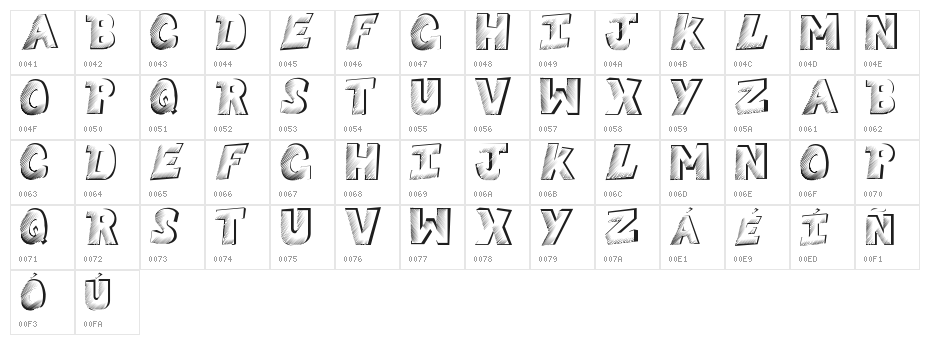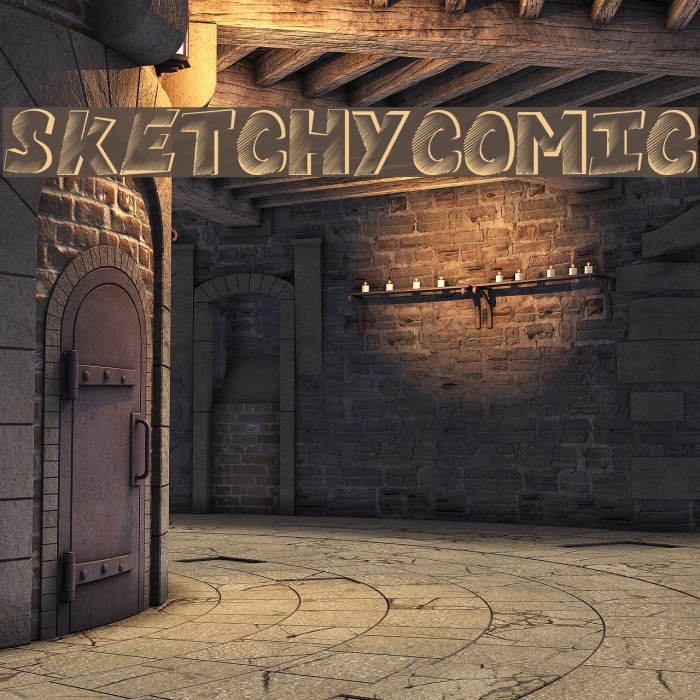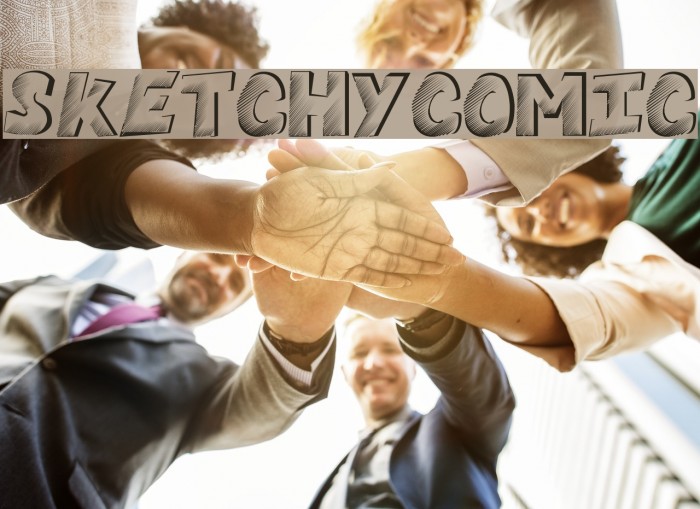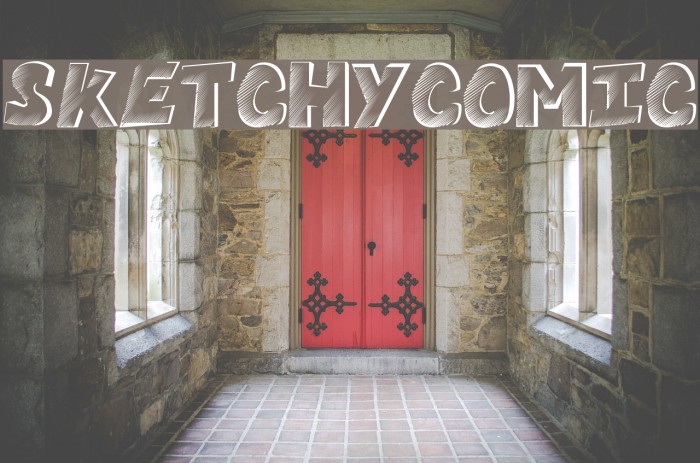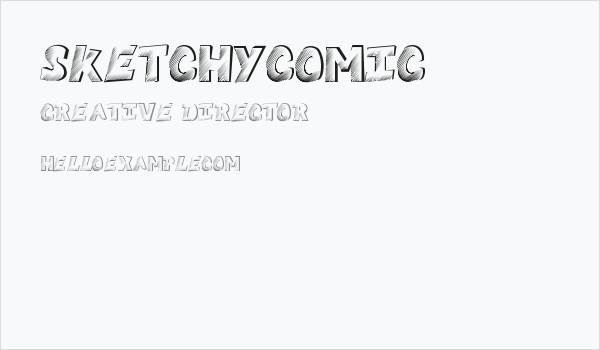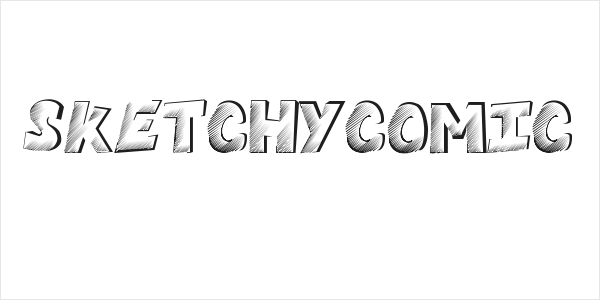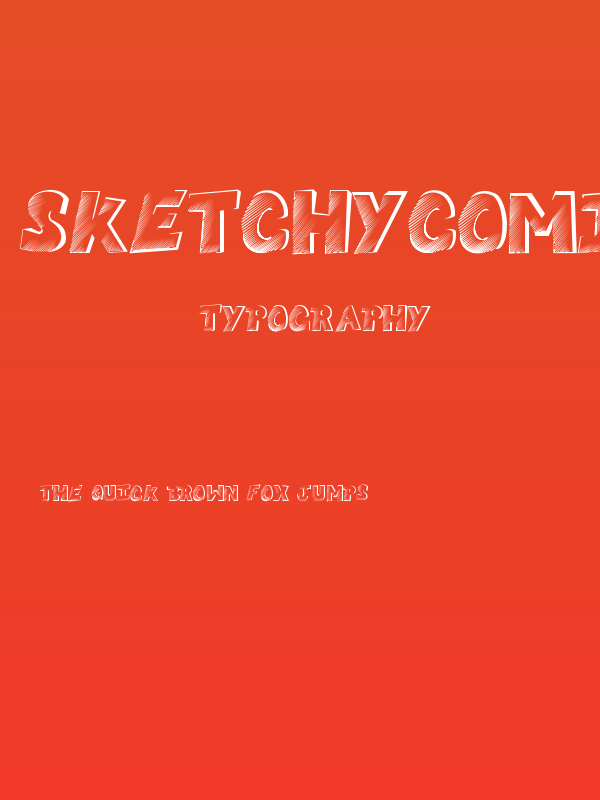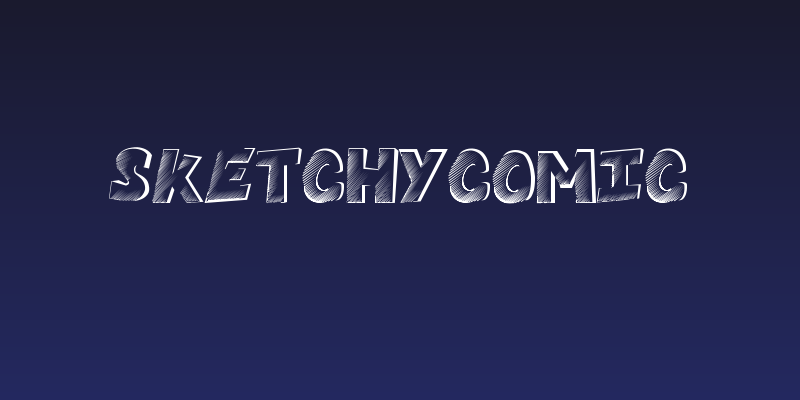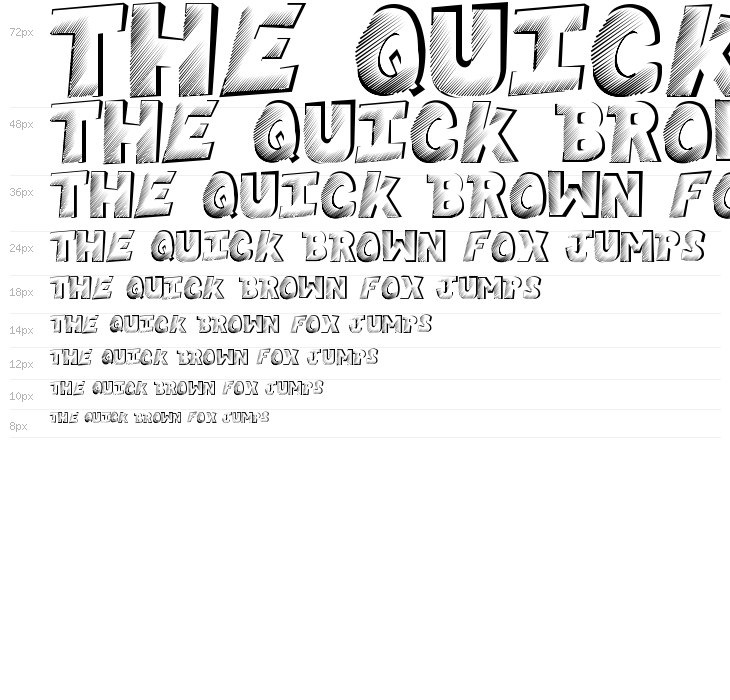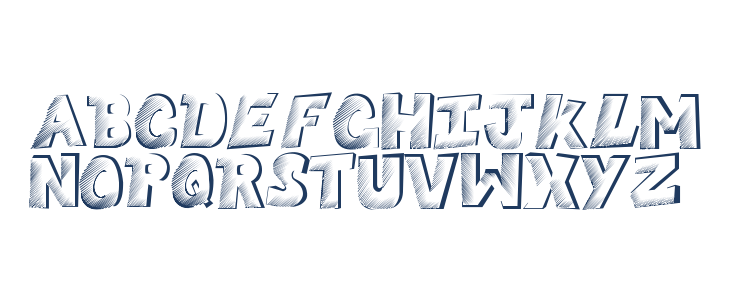
SketchyComic Font
SketchyComic Description
This font features a playful and dynamic style with a sketch-like appearance. Each character is designed with a hand-drawn effect, giving it a comic book feel. The letters are bold and slightly slanted, adding a sense of movement and energy. The shading within each character enhances the three-dimensional look, making the font stand out. The overall design is casual and fun, perfect for projects that require a lively and informal touch. The font maintains a consistent weight throughout, ensuring readability while still offering a unique visual appeal.
| Overall Style | Playful, Comic |
| Proposed Projects | Ideal for comic books, children's books, playful branding, and creative posters. |